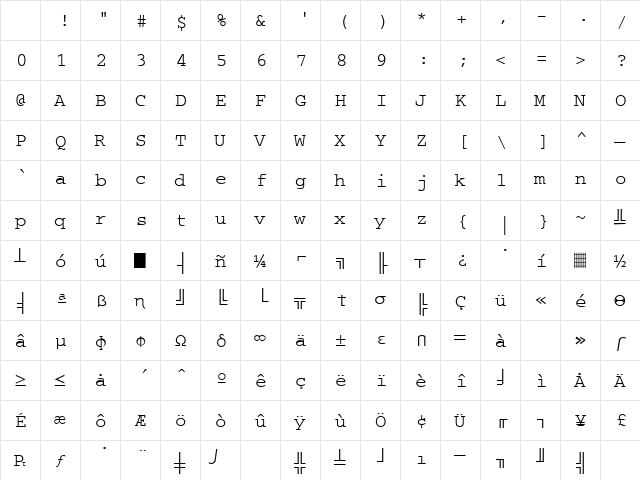
PC-CharSet Regular
PC-CharSet Family
Design Context for PC-CharSet
PC-CharSet is a composed and adaptable typeface that performs quietly and consistently across a wide range of design contexts.